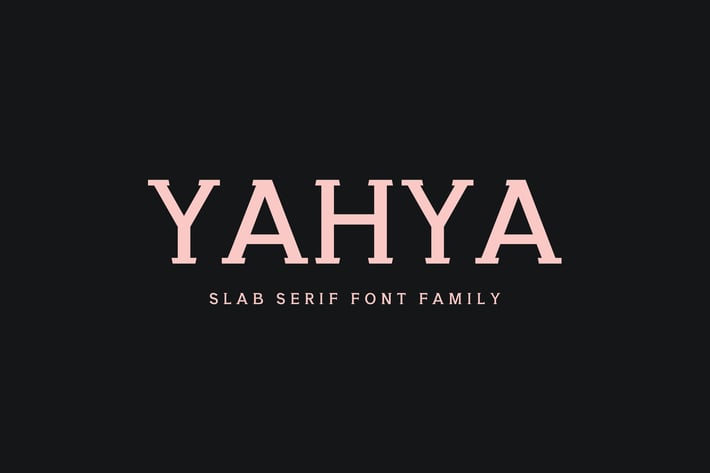
Yahya Slab Serif Font Family
Yahya is a minimalist and stylish round slab font family that will make your design fresh and innovative. It includes uppercase, lowercase, number, punctuation, symbols, with non-english characters. Yahya makes it perfect for posters, greeting cards, stationery design, magazine layouts, stickers and stencil design, prints, logotypes, branding, name card, stationary, design title, blog header, quotes, typography, headlines, packaging, presentations, titles, magazines, headings, web layouts, advertising, invitations, packaging design, books, and nearly any creative design.
Included Features:
- Font Weight: Regular, Light, Medium, Round and Bold
Yahya Font Features:
- Uppercase Multilingual Letters
- Lowercase Multilingual Letters
- Numbers and Punctuation
- Non English Characters ( Latin Supplement + Latin Extended A)